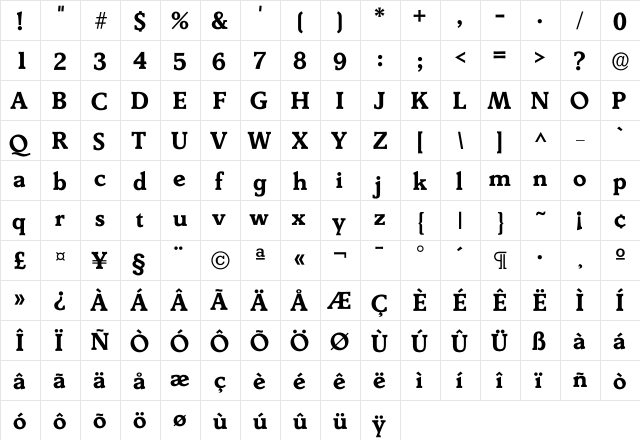
Derrin DemiBold
Design Context for Derrin Typeface
Derrin is a composed and adaptable typeface that performs quietly and consistently across a wide range of design contexts. Its bold stroke weight gives it real presence on the page.
Pro Tip: Pair Derrin with a font of contrasting weight or personality to build a more expressive typographic hierarchy.